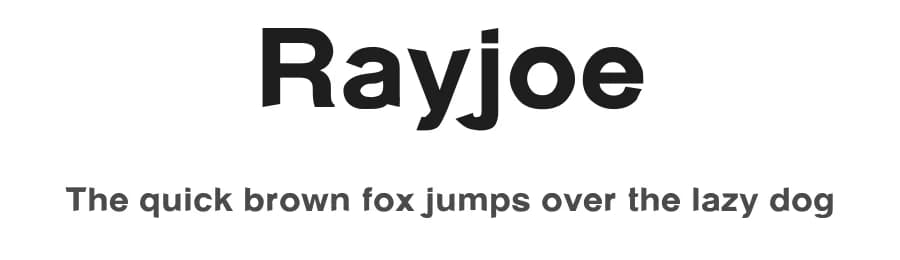
About Rayjoe Font
Rayjoe is a sans-serif font designed by Joe Chau. It includes 258 glyphs, a regular weight, TTF (TrueType) format, and 207 languages. Rayjoe is free to download; check the license details on this page before commercial use. Sans-serif fonts like Rayjoe work best for clean body text, user interfaces, branding, and modern layouts.
Rayjoe Font is a versatile sans-serif font that works for both headings and body text. Pair it with a contrasting serif or slab serif font to add visual interest and a clear distinction between titles and body copy.
Rayjoe Font
by Joe Chau
Rayjoe Font is a sans serif typeface by Joe Chau, ideal for logos, invitations, branding, and creative projects.